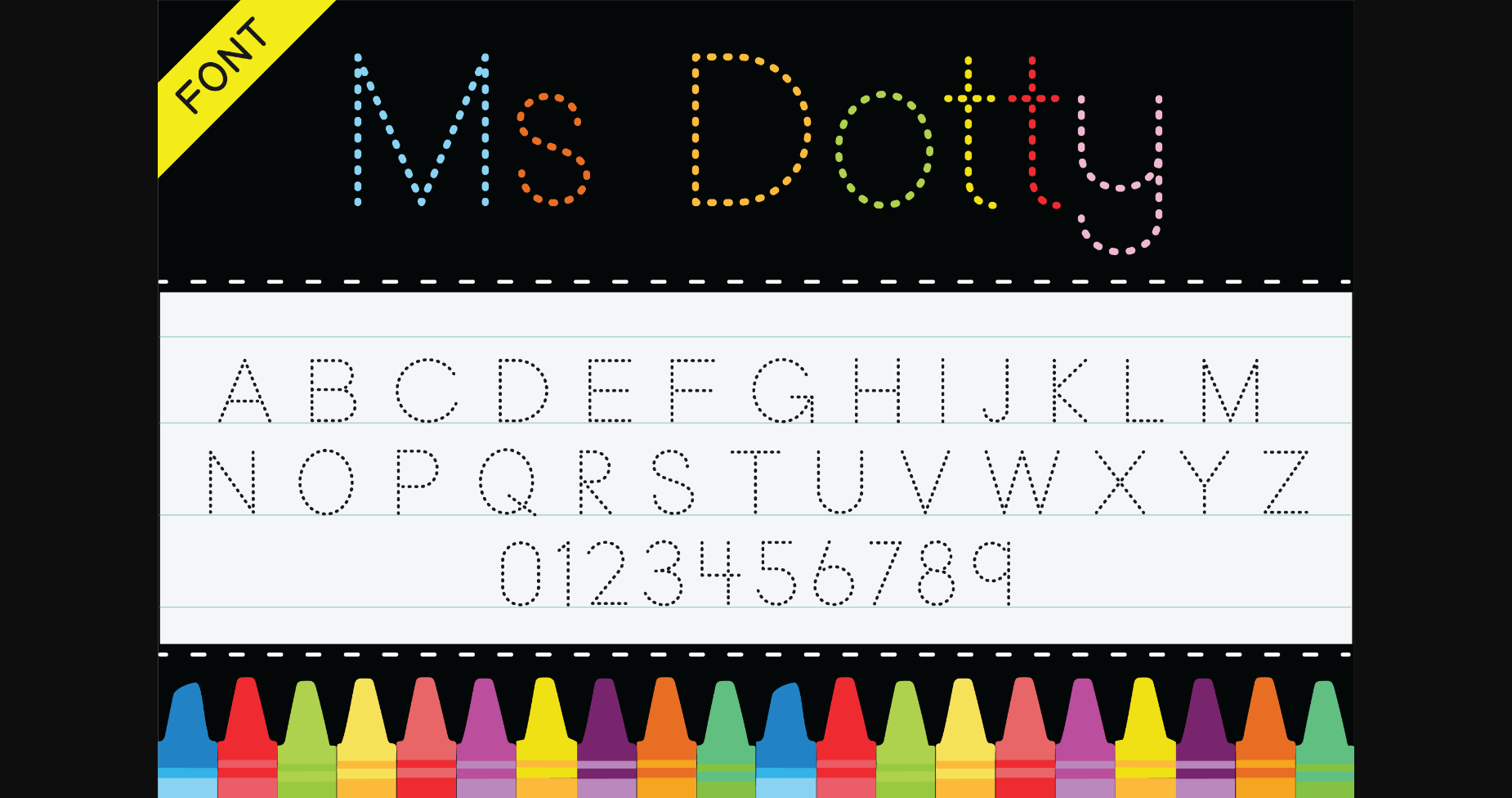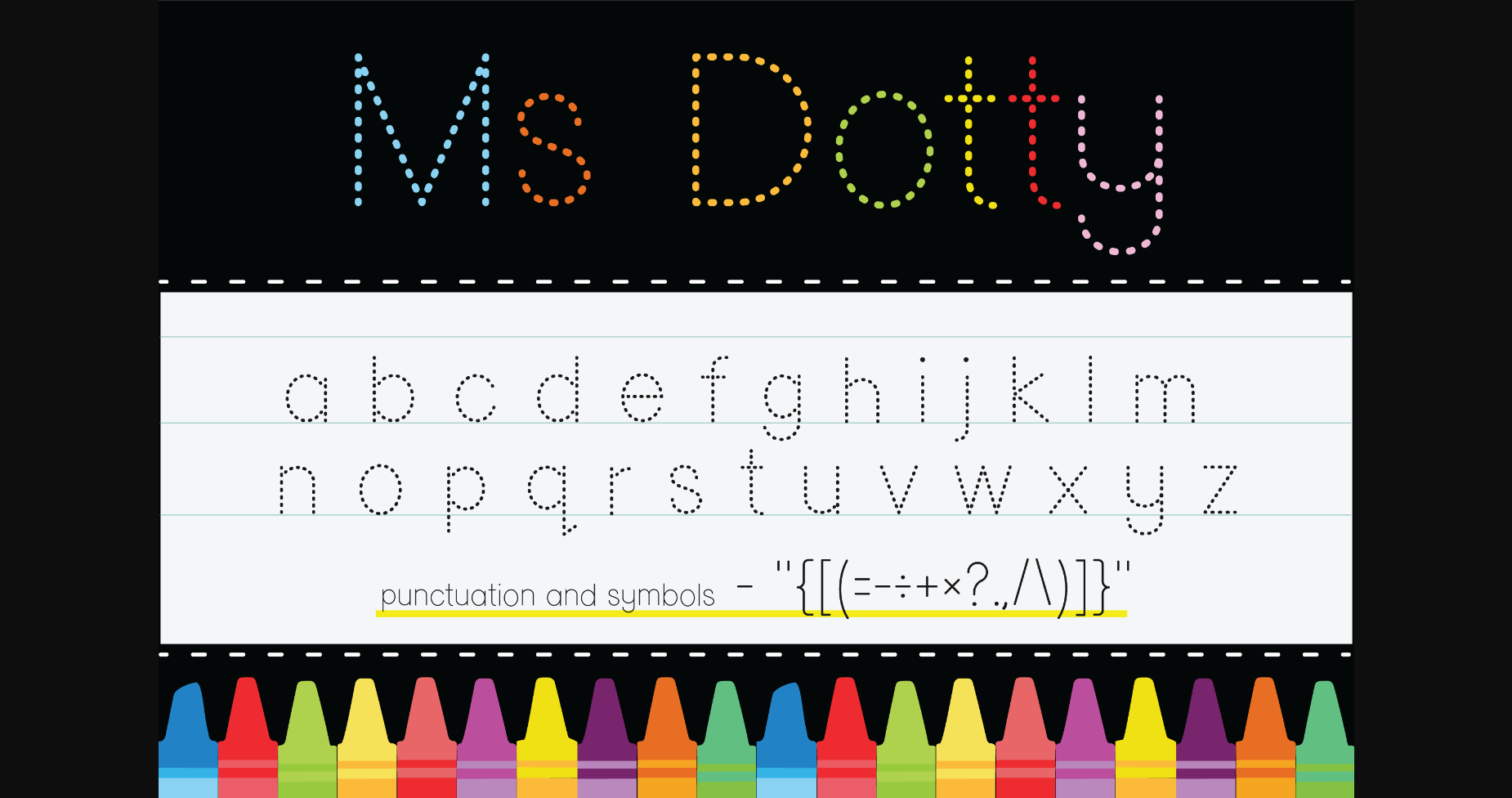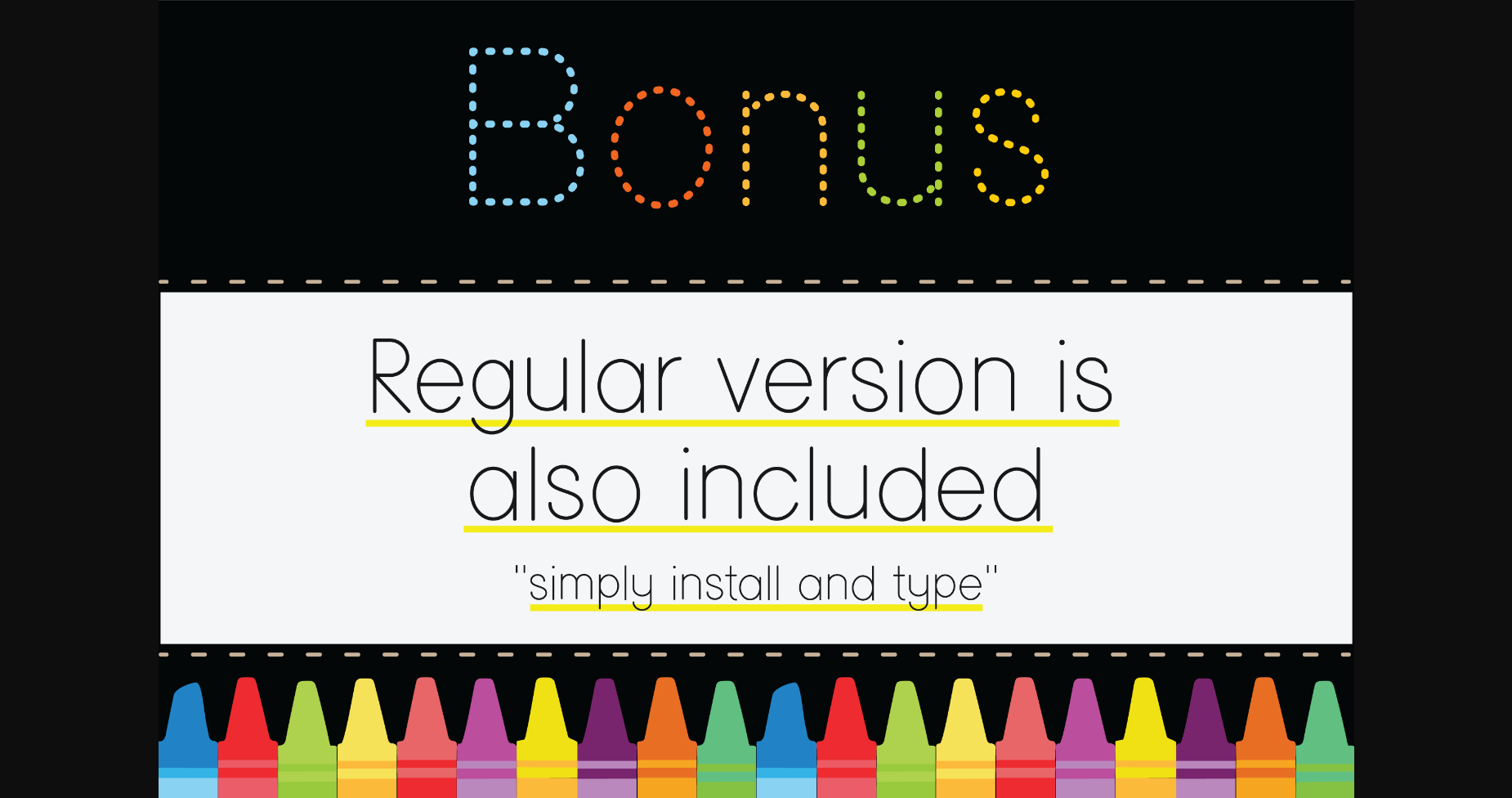
HomeSans Serif FontsMs Dotty Font Sans Serif Fonts Ms Dotty Font FacebookXPinterestWhatsApp 1 of 5 ... Ms Dotty Font Poster 2... Ms Dotty Font Poster 3... Ms Dotty Font Poster 4... Ms Dotty Font Poster 5... About Ms Dotty Font Ms Dotty is a cute and simple sans serif font. It is perfect for children themed designs, especially when combined with bright colors. DOWNLOAD NOW People also explored Storyline Font Selvhina Font Jelajahi Etha Font Runaway Font Treacle Gladden Font Paname Font Passion Fruit Style Font Shatige Font 271 0 TagsMs Dotty Font Previous articleGlowforge FontNext articleElen Sans Font LEAVE A REPLY Cancel reply Comment: Please enter your comment! Name:* Please enter your name here Email:* You have entered an incorrect email address! Please enter your email address here Website: Save my name, email, and website in this browser for the next time I comment. Personal Use Free City Tour Personal Use Free Read more about this font Angista Script Personal Use Free Read more about this font Trunk Shaped Personal Use Free Read more about this font Peachy Rose Personal Use Free Read more about this font BLOG Top 10 Handwritten Fonts That Elevate Your Designs Top 10 Handwritten Fonts That Will Elevate Your Designs Handwritten fonts bring a warm, personal touch to every creative project. Whether you're designing logos, invitations,... Exploring Font Trends Free Fonts Risk: Why Free Fonts Can Be Dangerous for Designers Free vs Paid Fonts: Why Investing in Premium Fonts Is Worth It